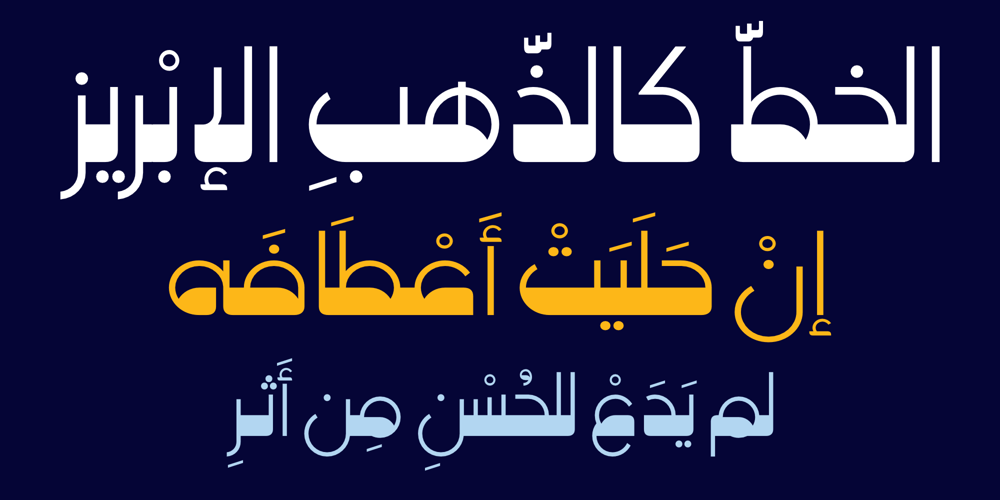
HS Elham Font Family was designed by Hasan Abu Afash and published by Hiba Studio. HS Elham contains 1 styles and family package options. HS Elham is a modern Kufi font introducing a novel concept with its round shapes and mathematical proportions. Building on the Hasan Elham font, it features innovative connections between letters and new shapes for many characters, making it a unique and enhanced version. Perfect for titles and graphic projects, HS Elham supports Arabic, Persian, and Urdu, broadening its application across various languages.